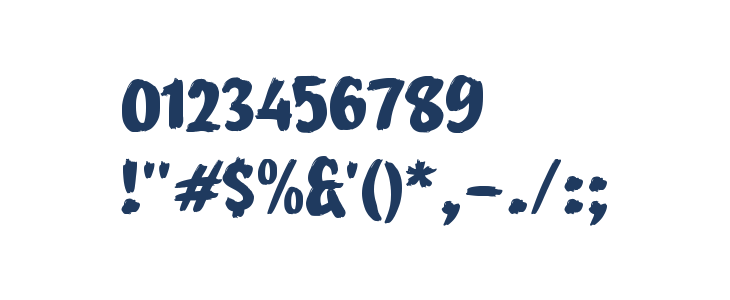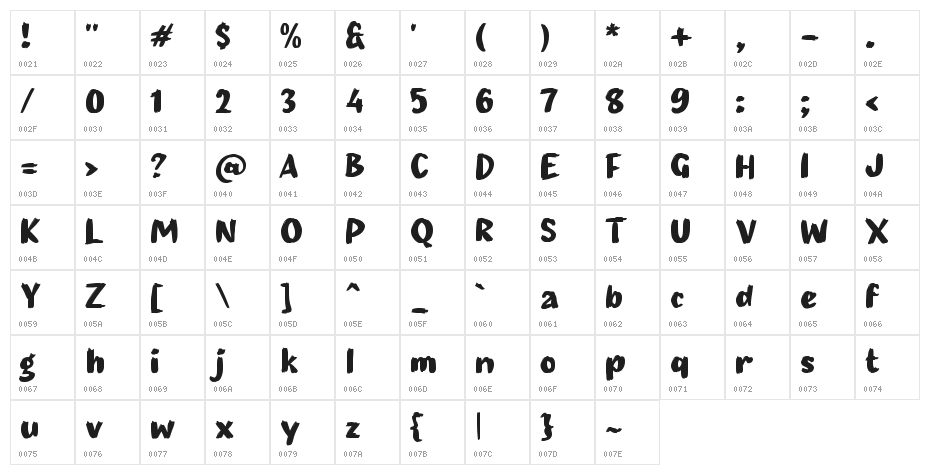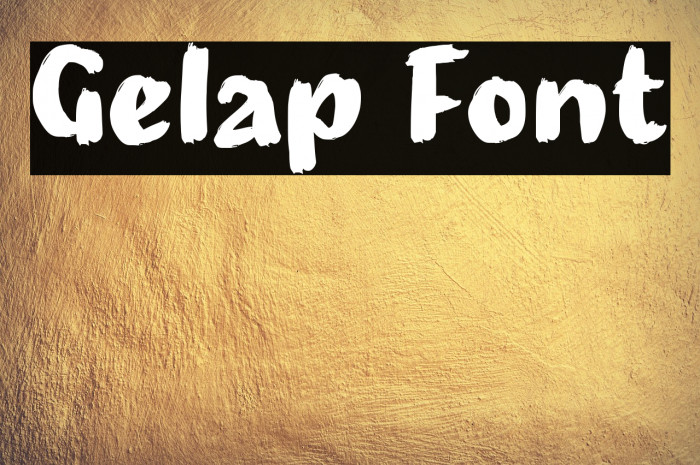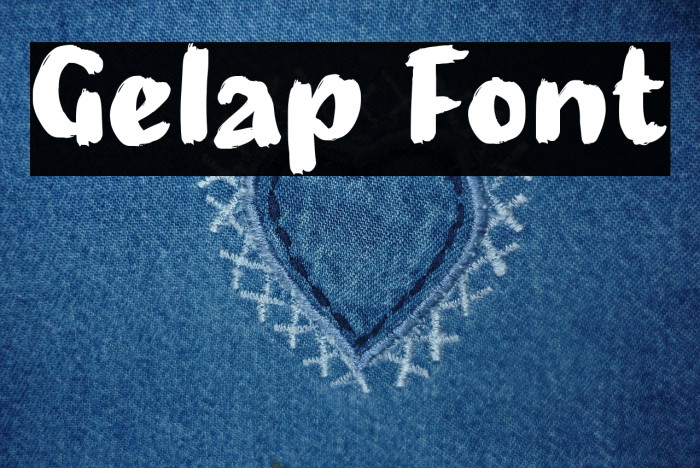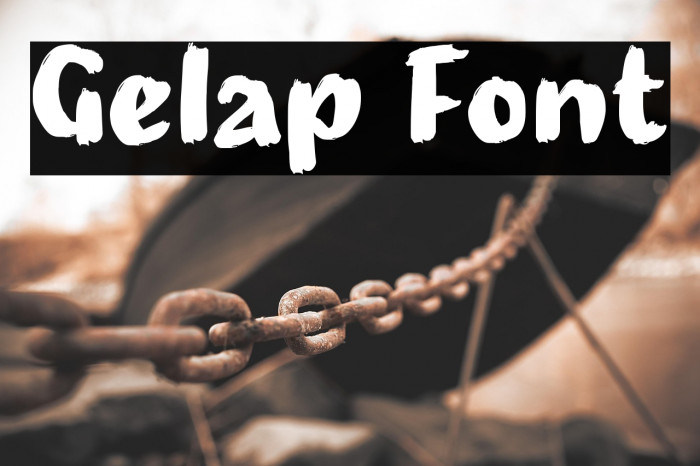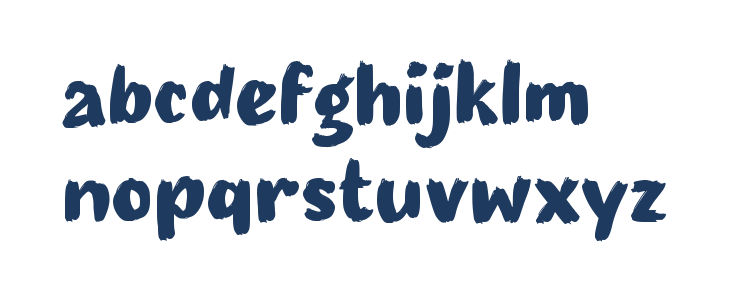
Gelap Font
Gelap Description
This font features a bold and expressive style, characterized by its thick, brush-like strokes that convey a sense of energy and dynamism. The uppercase and lowercase letters maintain a consistent weight, creating a cohesive look across the alphabet. The numbers and special characters are equally bold, ensuring readability and impact. The overall appearance is somewhat informal, with a hand-drawn quality that adds a personal touch. This font is ideal for projects that require a strong visual presence and a touch of creativity.